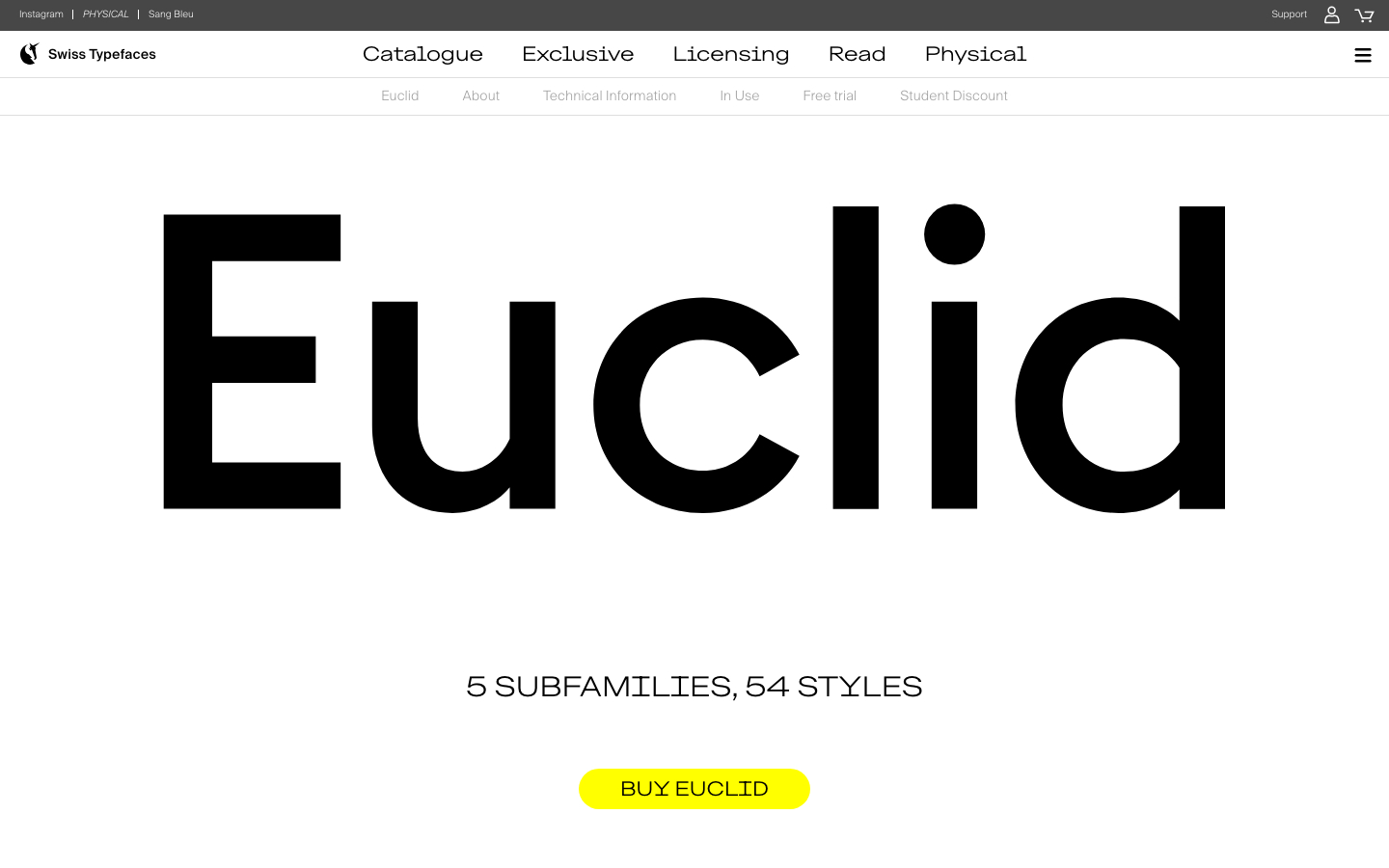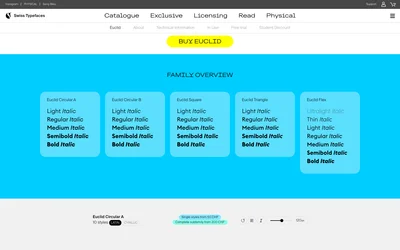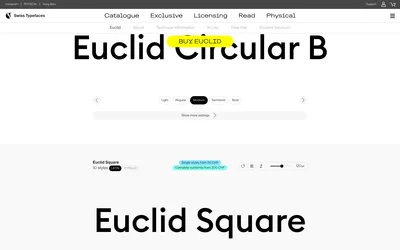
Acumin vs Euclid
Acumin and Euclid are both sans-serif typefaces sharing a modern foundation. The two share 92% design similarity overall. Compare which suits your Ui project.
92% Similarity
Design overlap:67%
Acumin
Neo-Grotesque
Modern
Euclid
Neo-GrotesqueGeometric
Modern
Acumin
Euclid
| Feature | Acumin | Euclid |
| Source | Adobe | Swiss Typefaces |
Consider: Euclid
- geometric design character